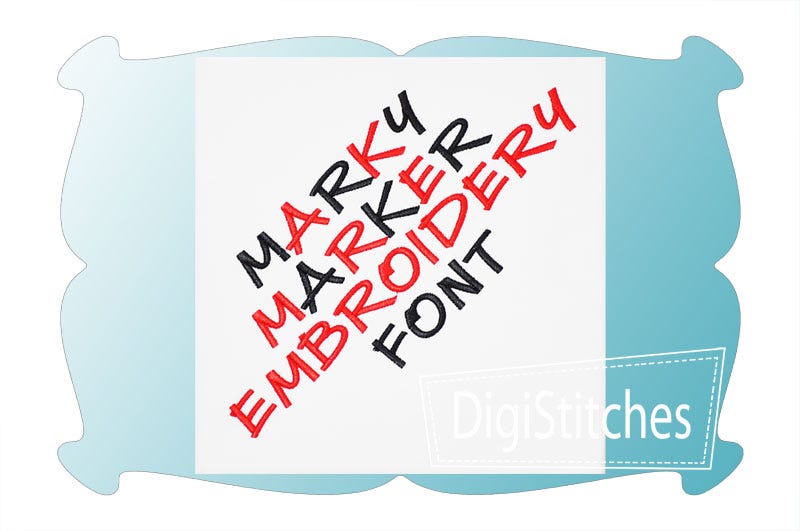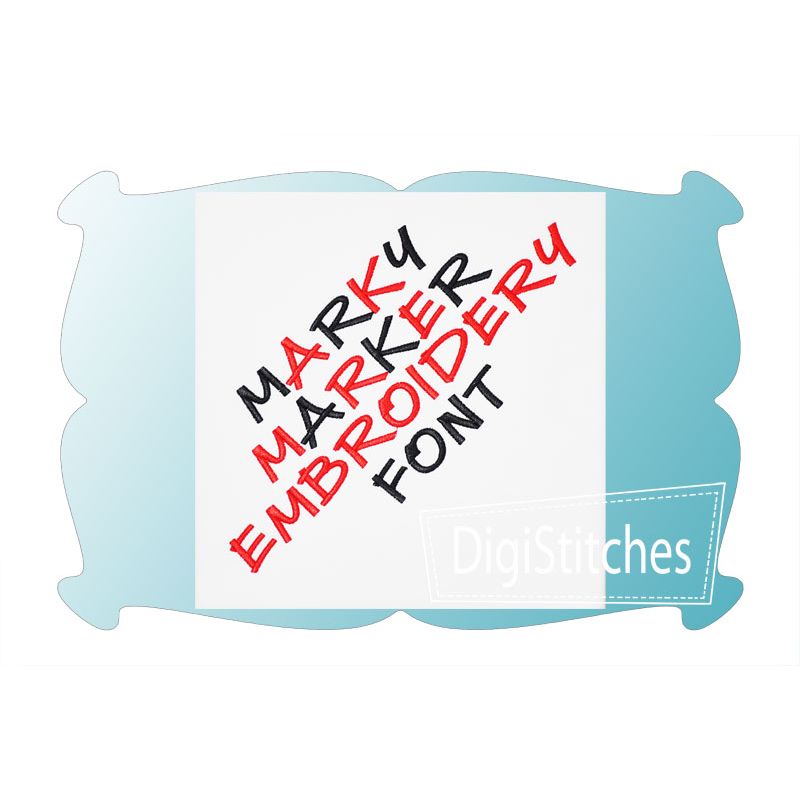
Marky Marker Satin Stitch Embroidery Font
Marky Marker Embroidery Font
Marky Marker embroidery font features super bold letters that really stand out on t-shirts and projects.
A fun an unique font suitable for both boys and girls.